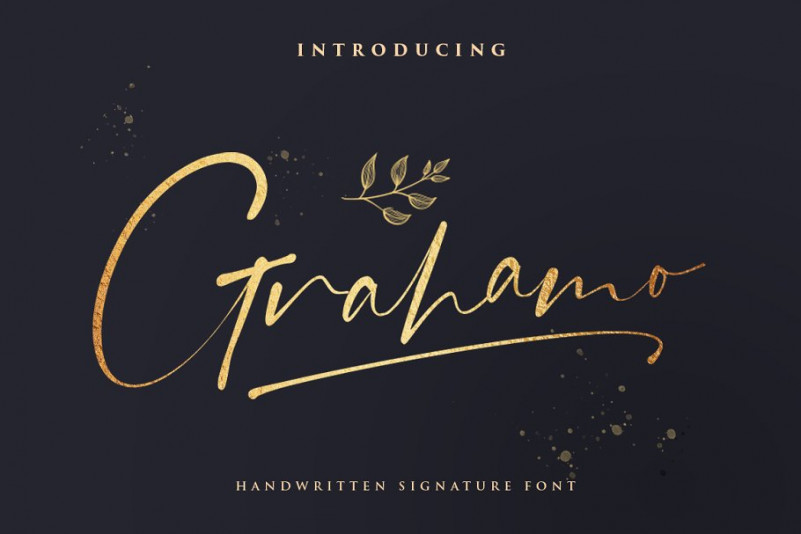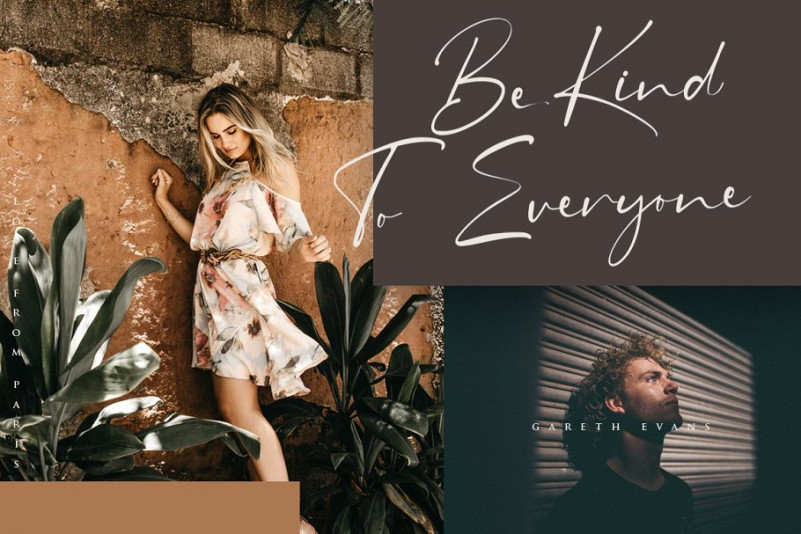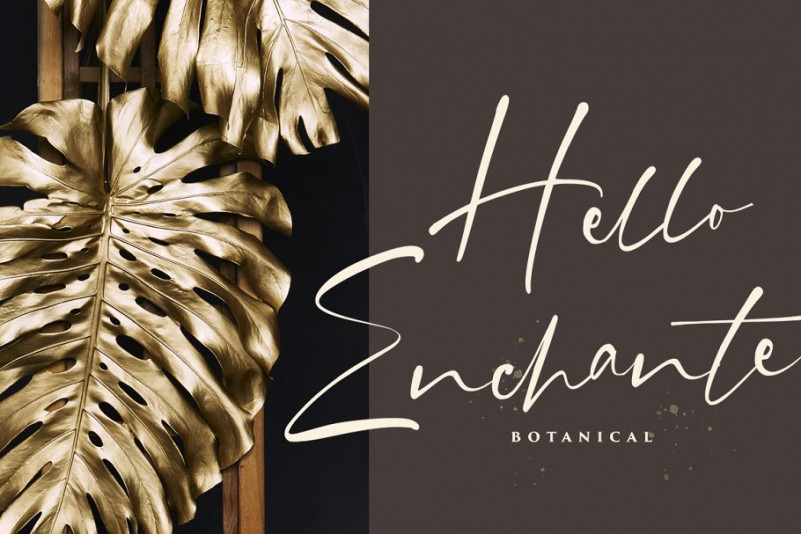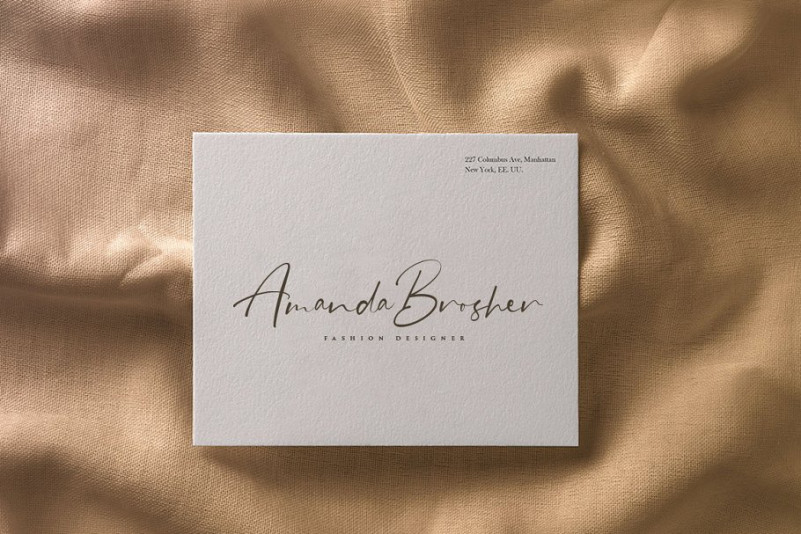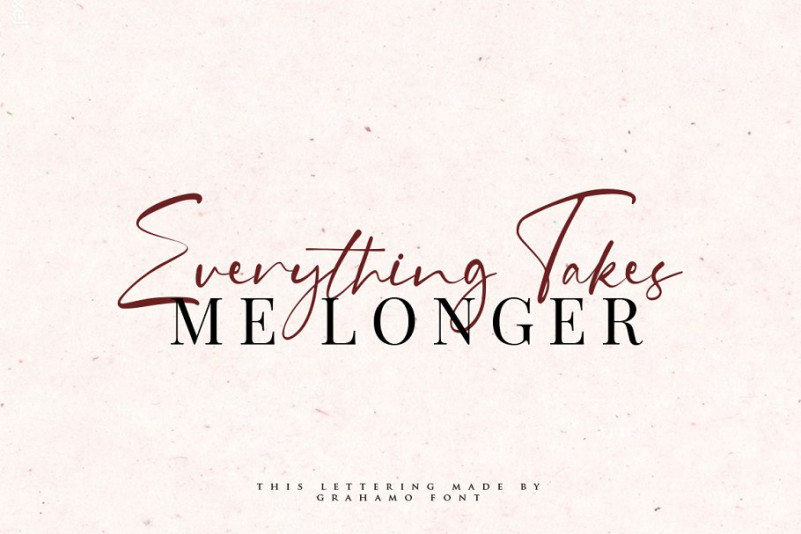
Grahamo Signature Font
Grahamo Signature Font is a modern handmade signature font by Vultype Co.. This is a type of modern signature that is carefully crafted to give the impression of natural handwriting, offers the character of each letter so that it can be used in various design fields. Introducing Grahamo Font. It’s luxury script with modern touch and beautiful ligature and alternate font. Grahamo Signature is easily cooperating together For Magazine, Movies, or Book Titles. For Photography, Wedding Invitation, Restaurant Menu or T-shirt Design. For Flyers, Banner Ads, web and printing. From Food and Fashion to a Cosmetics product